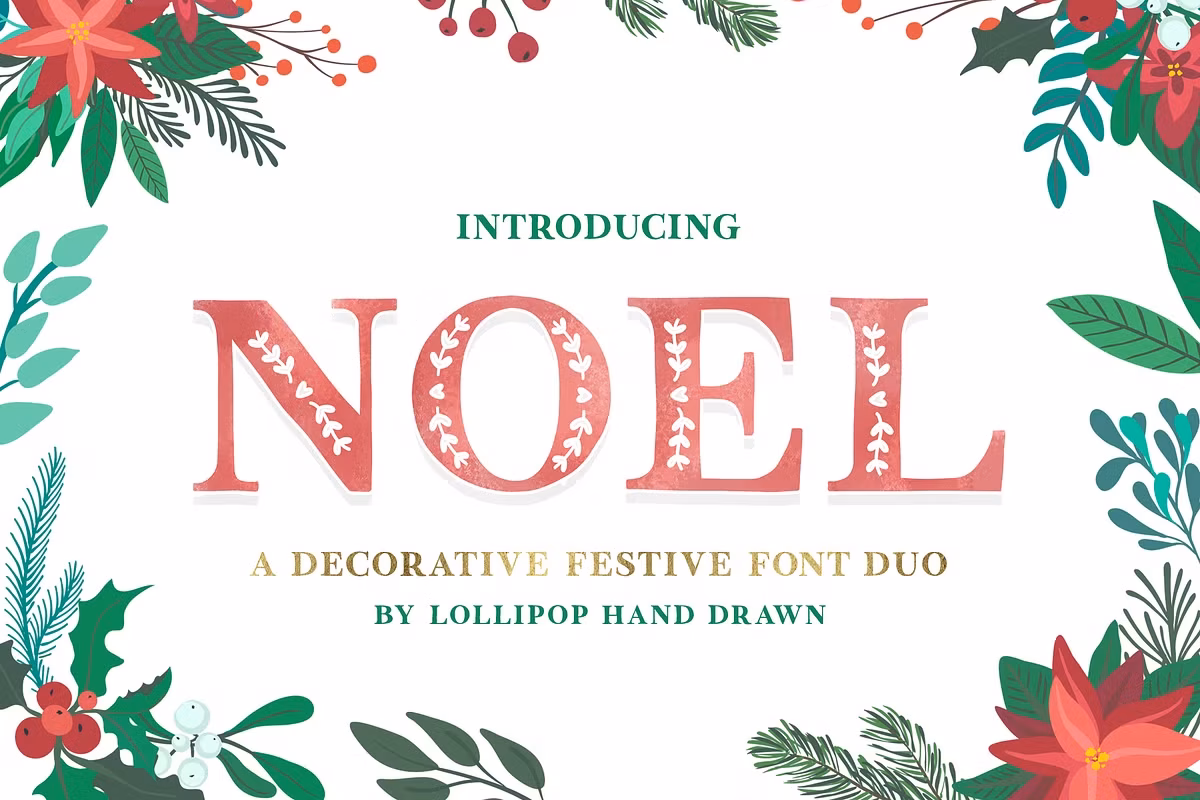
Noel Christmas Font Free Download is a festive and joyful typeface designed to bring the magic of the holiday season into your creative projects. With playful letterforms and a cozy, handcrafted feel, this font is perfect for Christmas cards, gift tags, holiday party invitations, seasonal branding, home decor, and DIY crafts.
Its warm, cheerful style captures the spirit of Christmas—whether you're going for classic red-and-green charm or a modern winter wonderland look. From snowflakes to stockings, Noel Christmas Font Free Download is your go-to for adding a merry and bright touch to any design.
Celebrate the season in style with Noel Christmas Font Free Download and create holiday designs that spread joy, warmth, and festive cheer with every word.